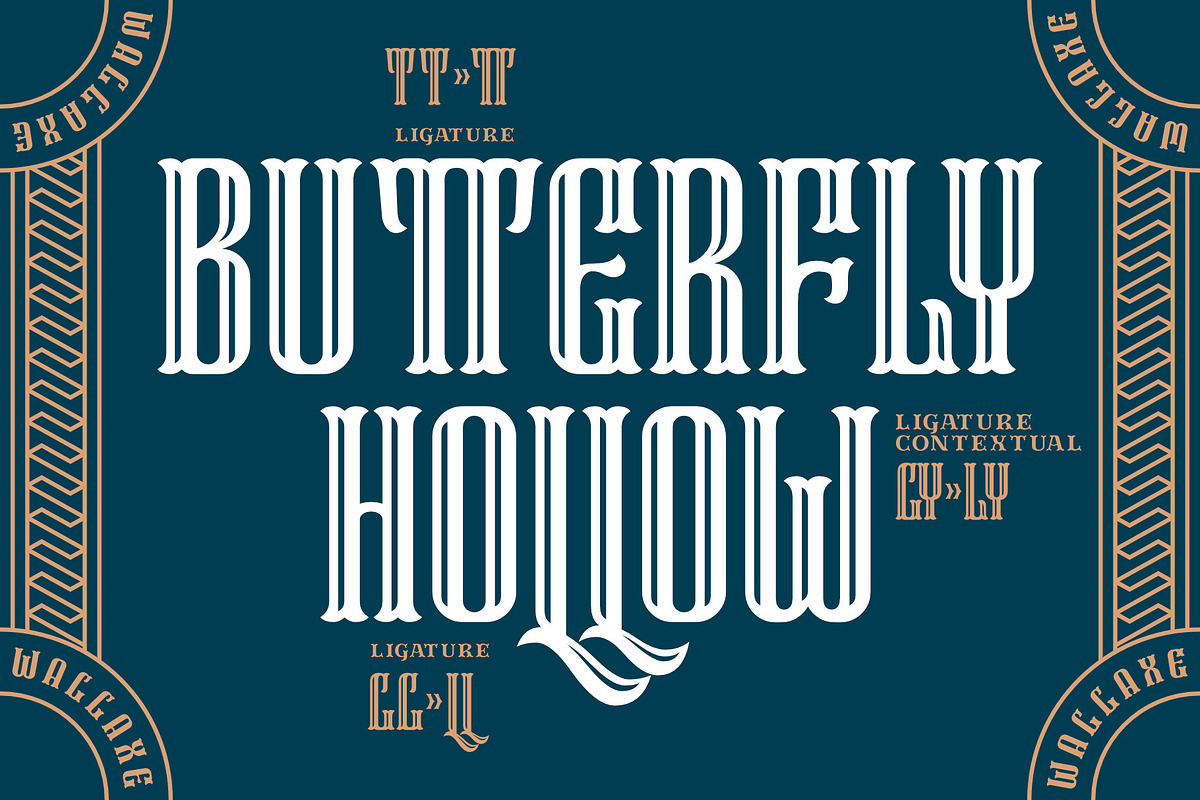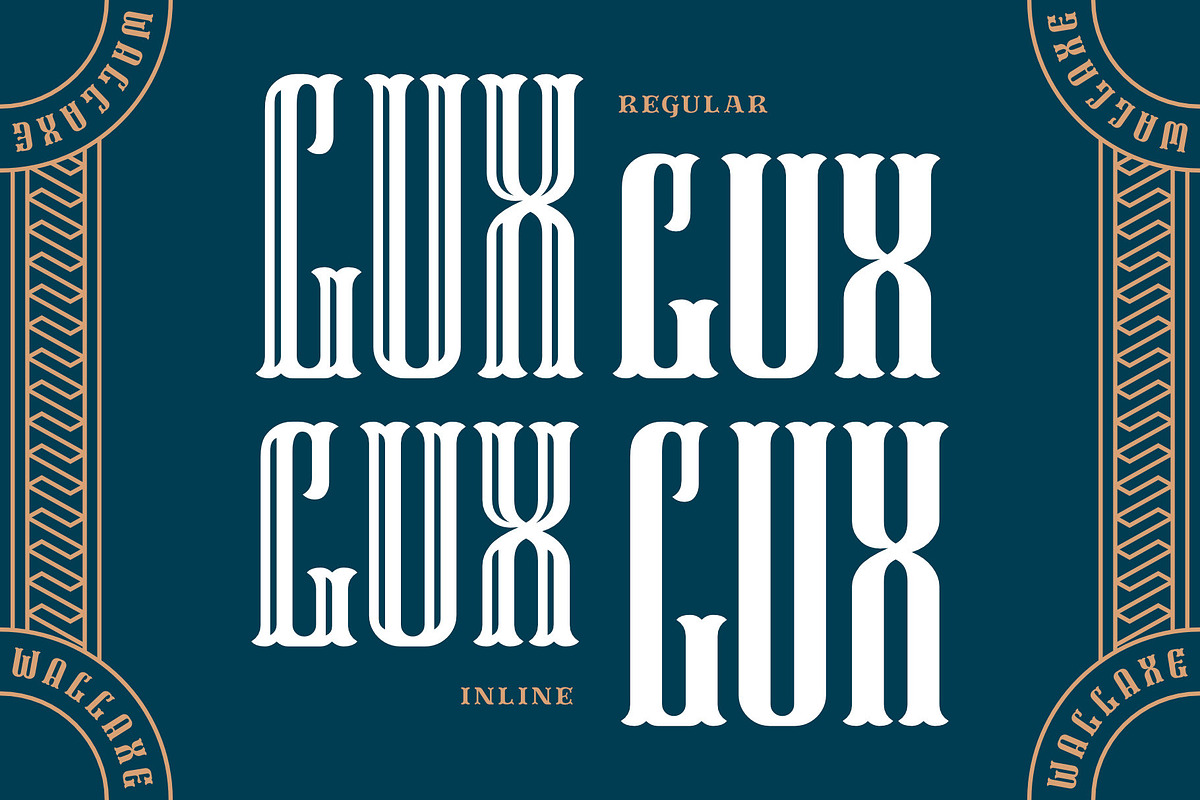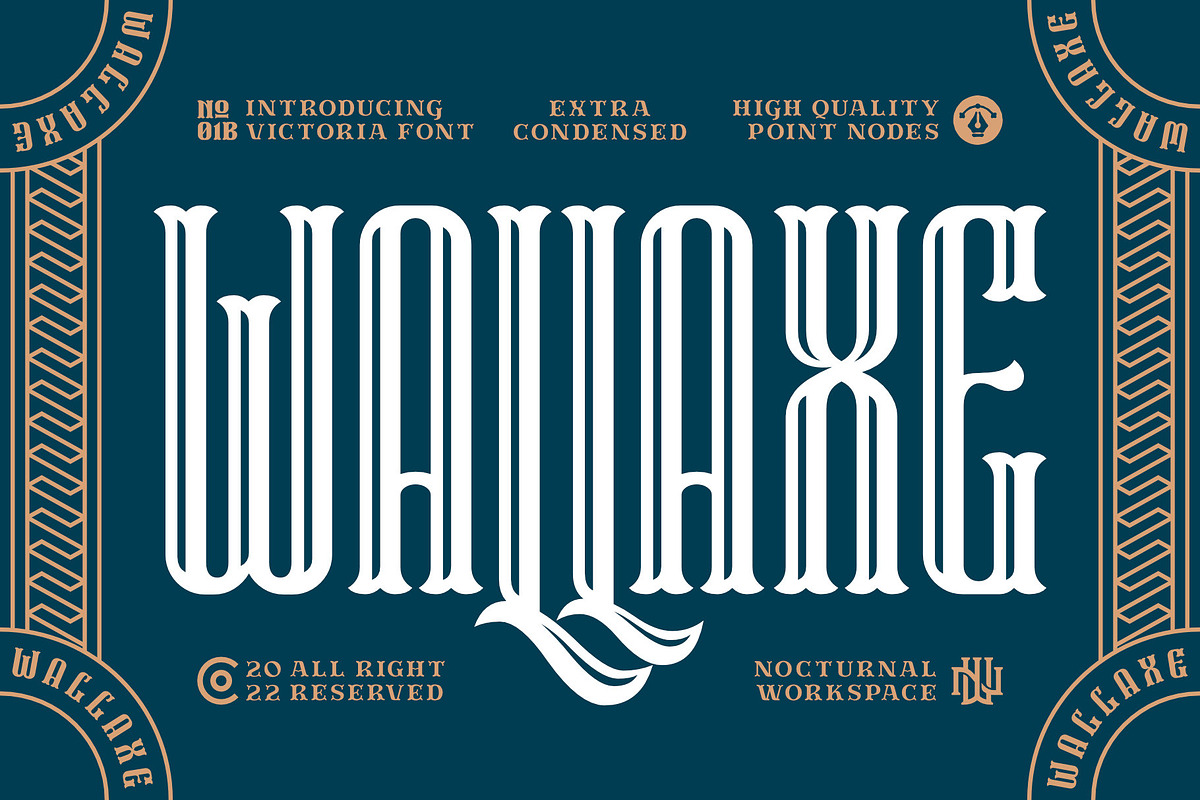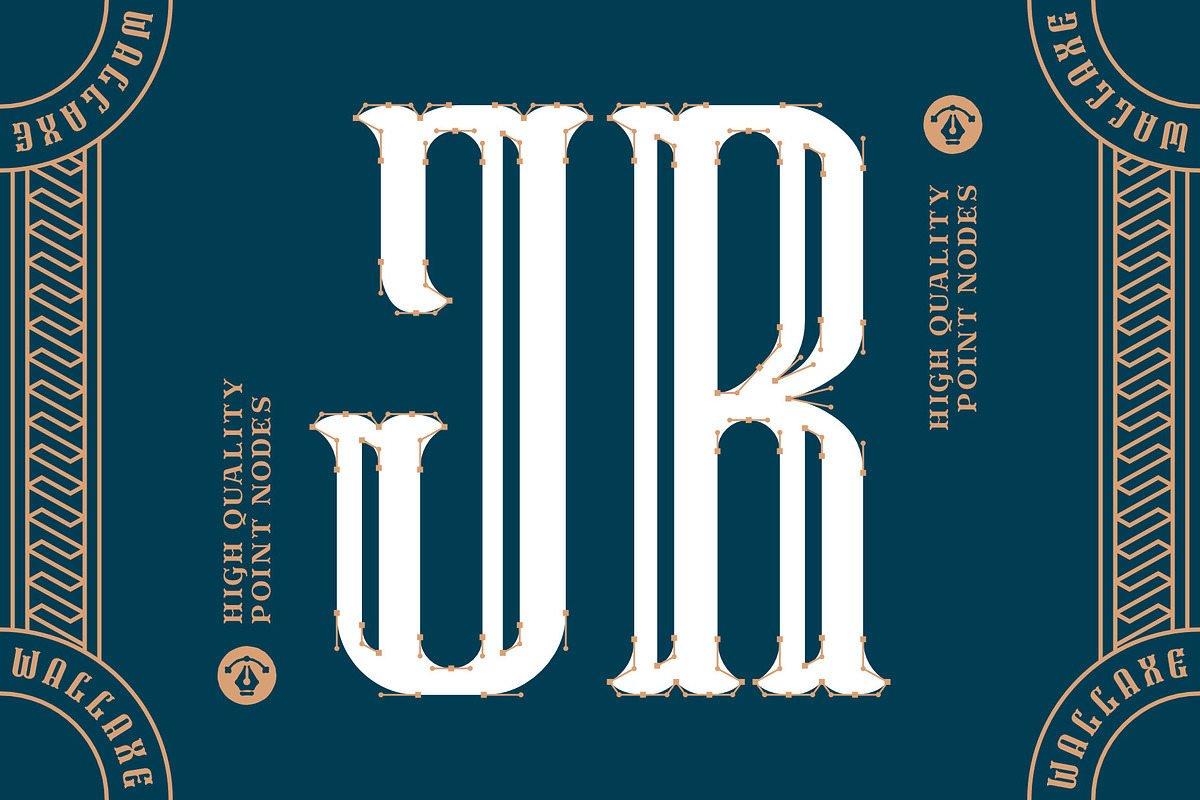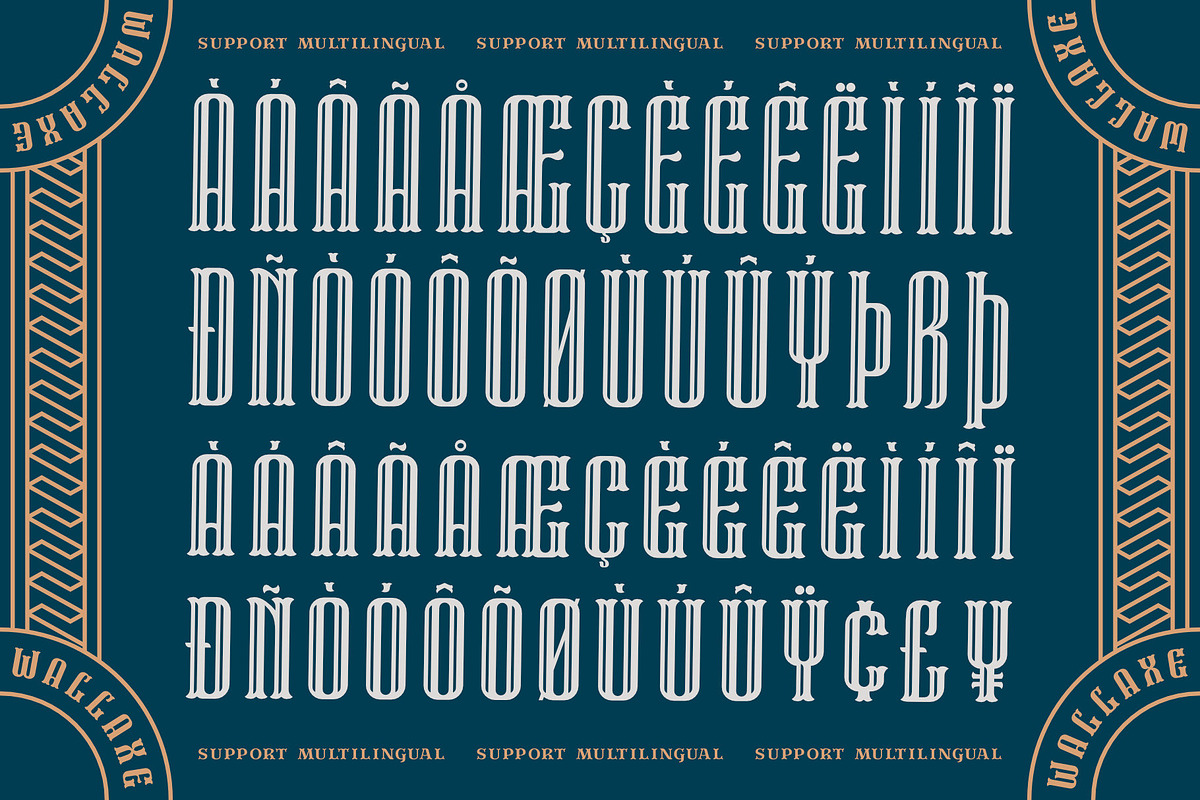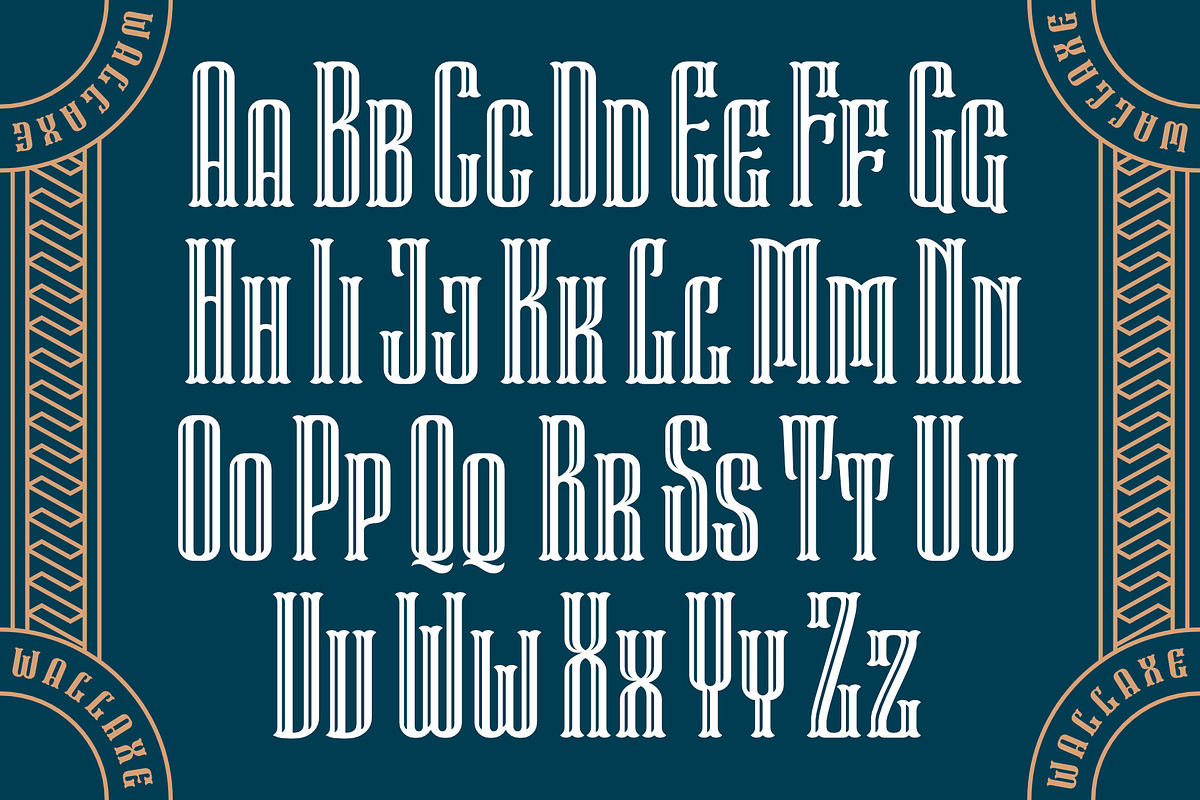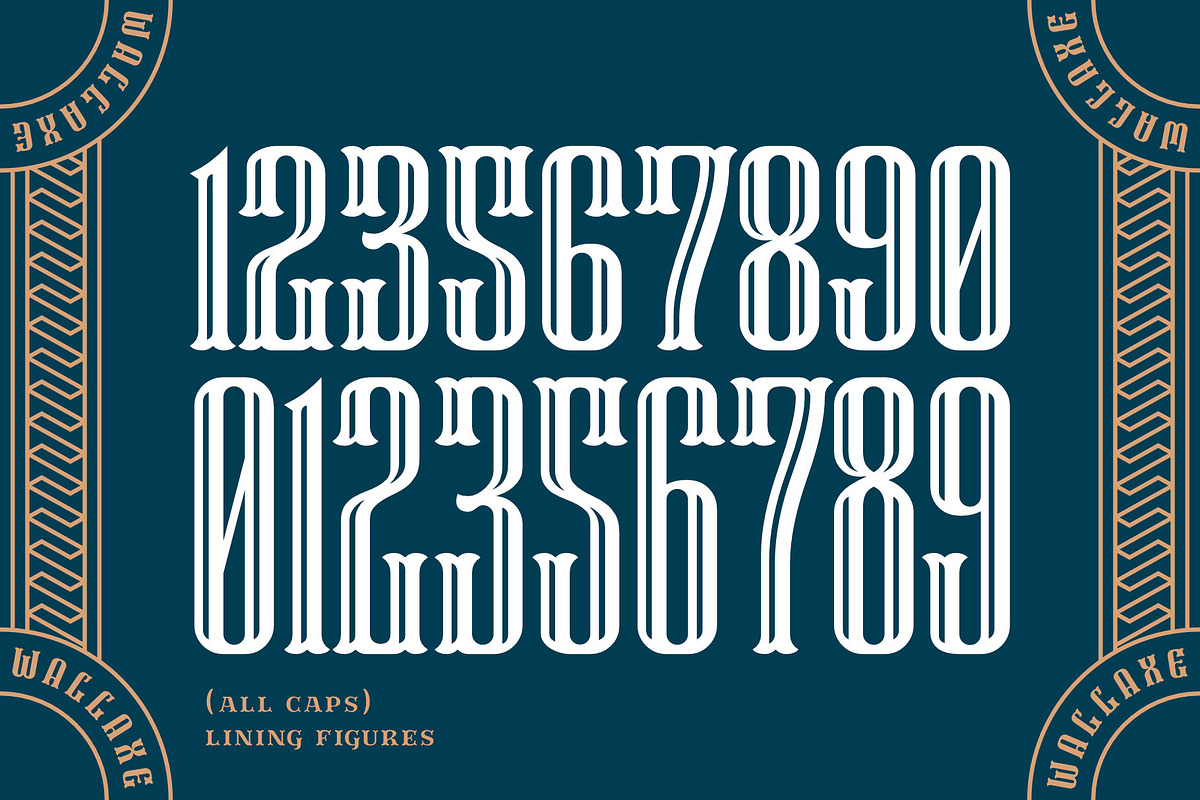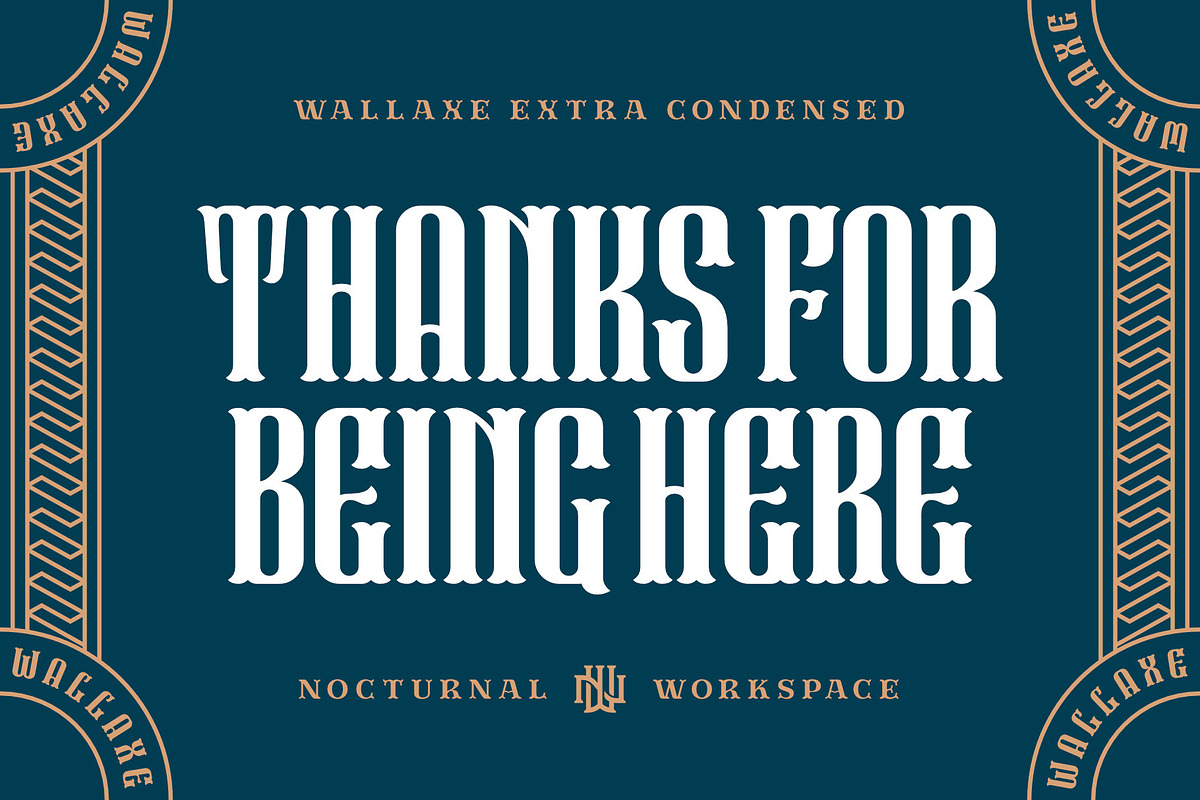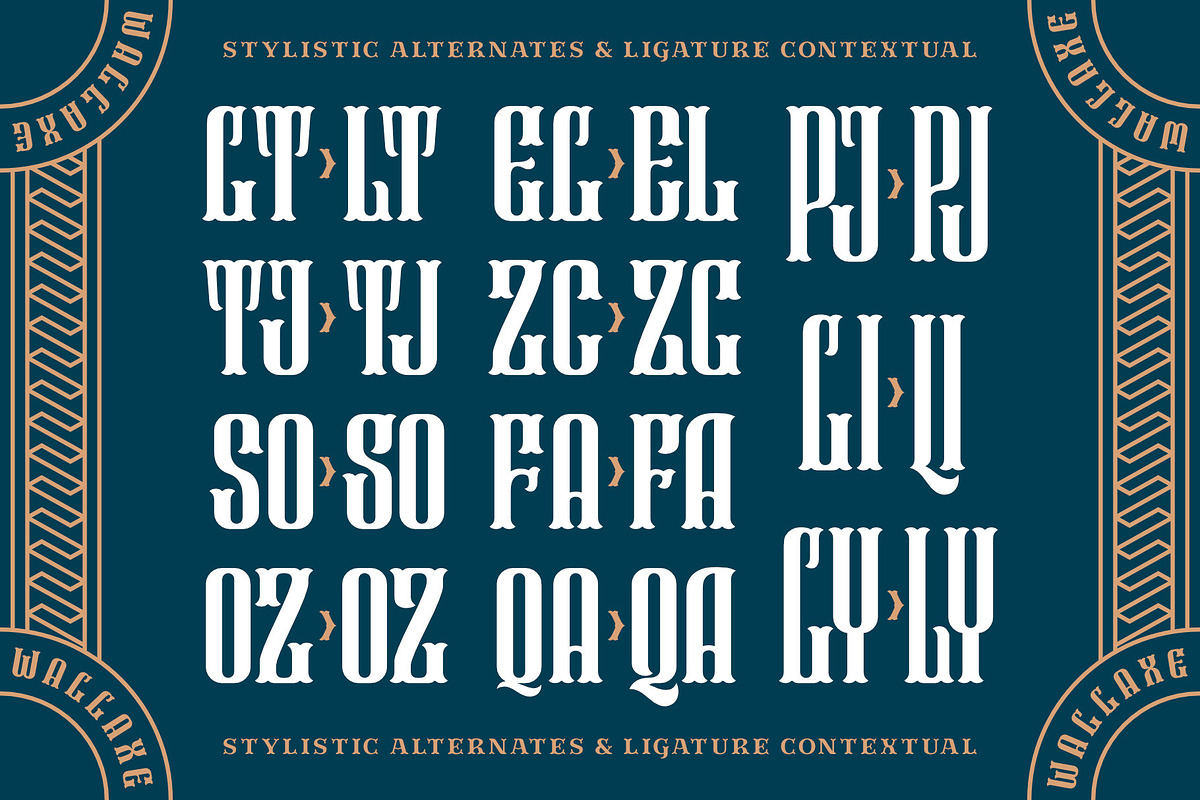
Wallaxe Extra Condensed
Wallaxe Extra Condensed is another version of its predecessor font Wallaxe https://creativemarket.com/nocturnal_workspace/3128933-WallAxe-Fonts-Condensed . suitable for using headlines, logos, badges, titles, video intros, posters, fashion, books, and other print media.
- Standard Ligature
- Stylistic Alternate
- Fraction, Numerator, Denominator
- Number Styles, Lining FIgures, Old Style.
- Ordinals
- Includes a range of multilingual characters.